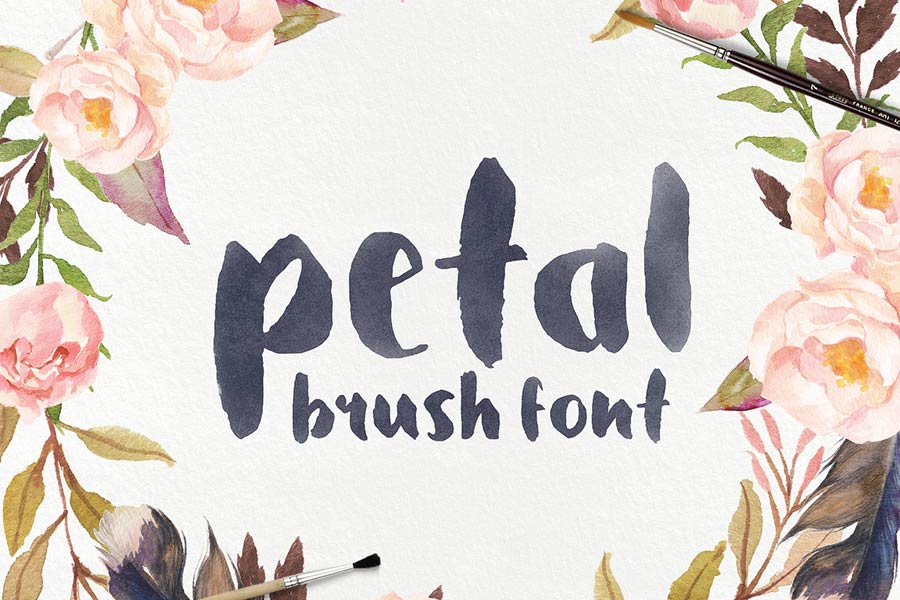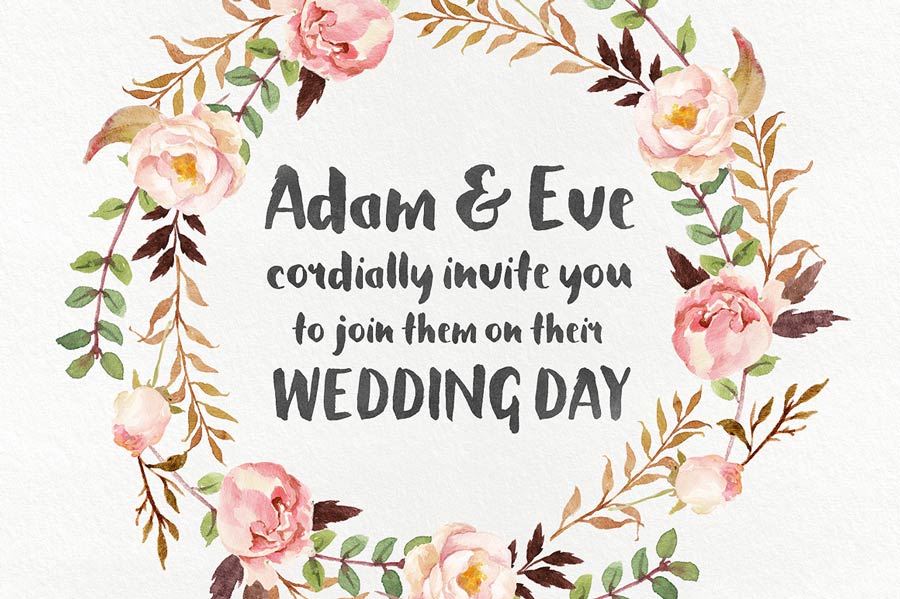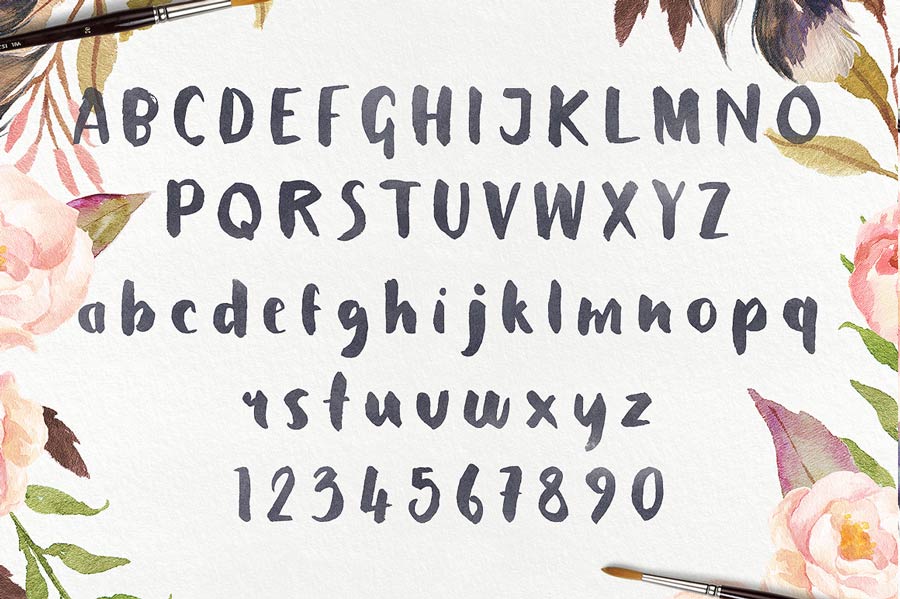
Featured in this week’s free font resources from Creative Market, Petal is a beautifully crafted brush font drawn with a Japanese brush pen. The font design is suitable for personalised design items like wedding invitation cards, posters, clothing labels and much more.
- Designer: Tom Chalky